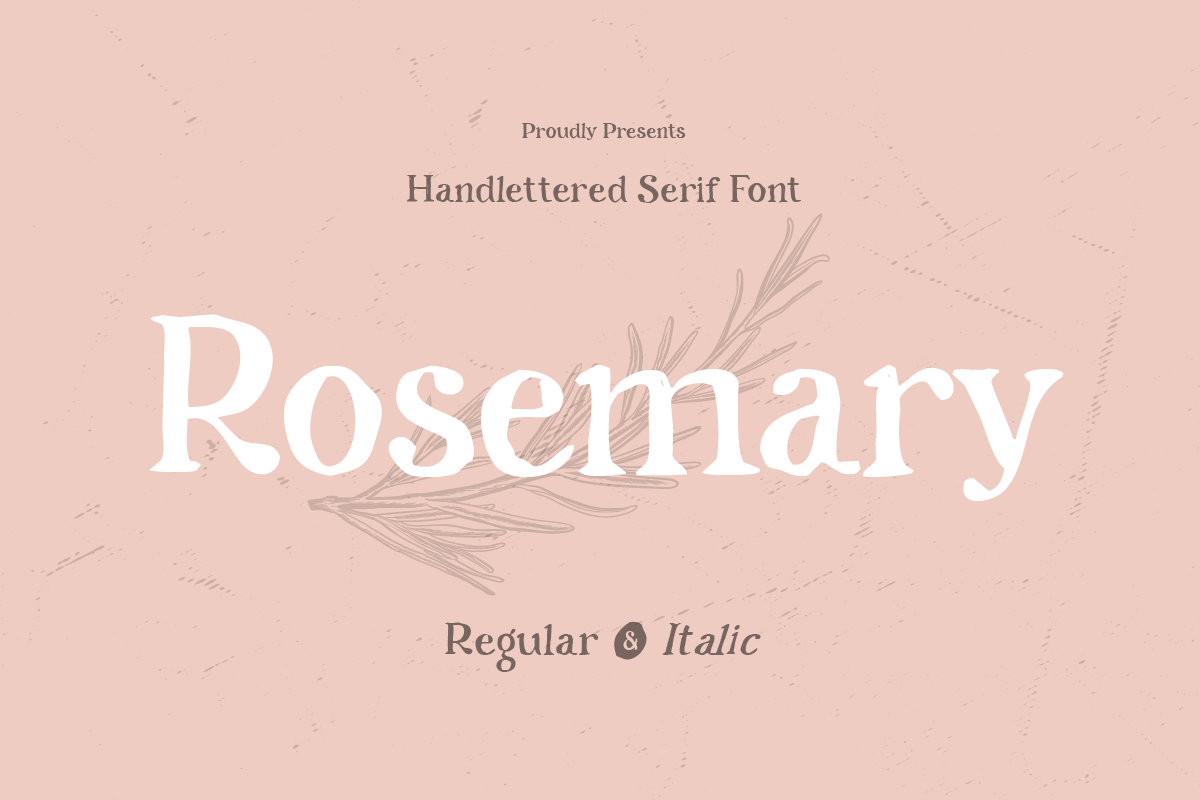
Rosemary
-Cute Handlettered Serif Font
Rosemary - Cute Handlettered Serif Font
Rosemary is a cute handlettered serif font that combines classic serif structures with a charming handwritten personality. Featuring organic letterforms and a warm creative style, this typeface brings a unique and friendly touch to modern designs.
Perfect for branding projects, logo design, quotes, wedding invitations, packaging, social media graphics, and creative stationery. Rosemary helps designers create memorable visual identities with a balance between elegant serif details and playful handwritten character.
With its handcrafted appearance and distinctive typography style, Rosemary is a versatile font choice for brands that want a personal, artistic, and approachable look.